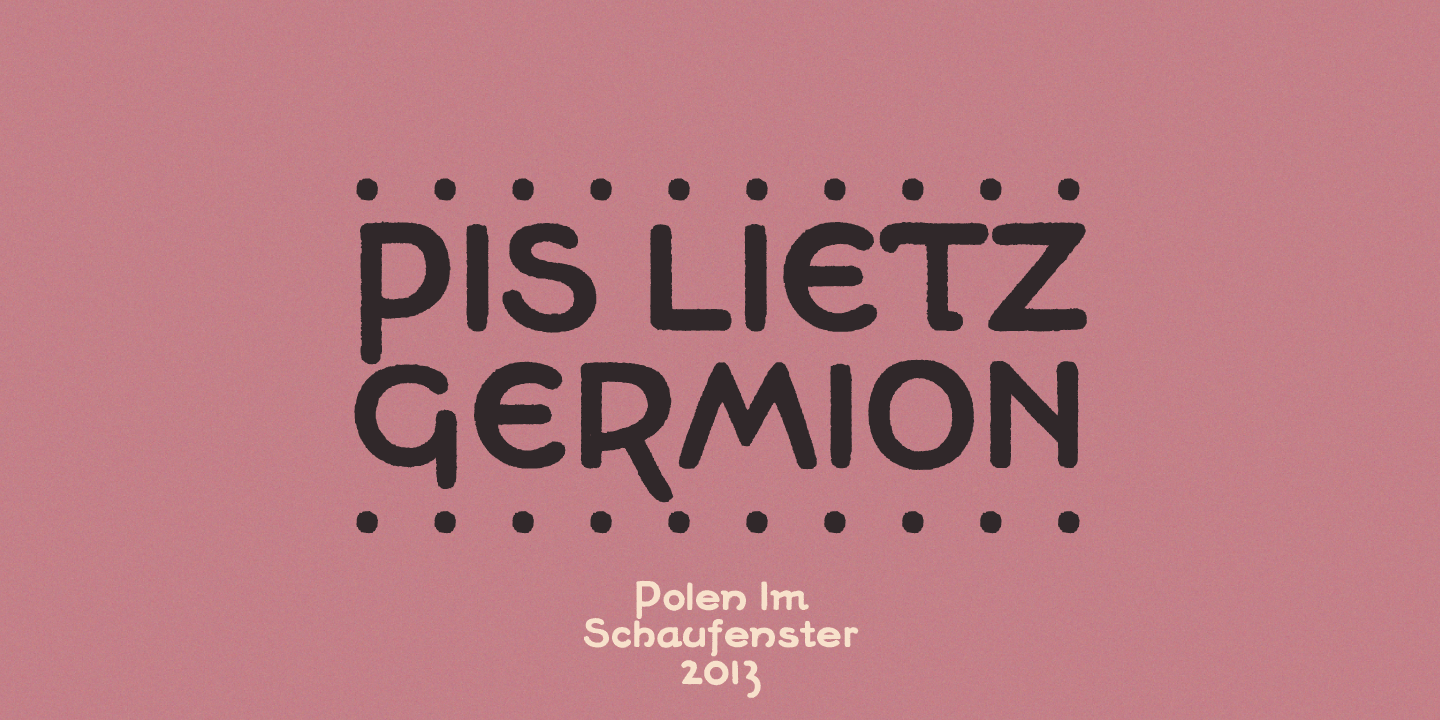
PiS LIETZ Germion Font is ideal for sophisticated design applications including Germanic cultural projects, European heritage branding, traditional craft brewery logos, classical music publications, architectural firm presentations, historical society materials, premium educational content, and refined advertising campaigns that require typography with distinctive European character and authentic cultural resonance.
What makes PiS LIETZ Germion Font exciting is its exceptional ability to capture the essence of Germanic typographic tradition while delivering contemporary functionality and refined elegance. This remarkable typeface features carefully crafted letterforms that honor classical European design principles with distinctive character details that communicate heritage, precision, and cultural authenticity. The font's sophisticated personality and traditional appeal make it perfect for brands seeking to establish credibility through cultural connection and typographic excellence.
PiS LIETZ Germion Font family encompasses multiple weights and stylistic variations designed for comprehensive European-inspired communication. The family typically includes light, regular, bold, and black weights, complemented by italic versions, decorative alternates, and extensive character sets with Germanic language support and traditional European typographic features.
Heritage-focused designers consistently choose PiS LIETZ Germion Font Free Download for projects requiring typography that embodies European cultural sophistication and traditional craftsmanship values. This distinguished typeface adapts beautifully across contemporary and classical applications, delivering consistent brand messaging with unmistakable cultural authenticity and professional refinement. The font's meticulously researched letterforms ensure historical accuracy while maintaining excellent modern readability. International creative agencies rely on this culturally rich typeface to communicate brand values of tradition, quality, and European heritage. Establish your brand's cultural credentials with PiS LIETZ Germion Font and create compelling visual communications that resonate with audiences who appreciate authentic European design traditions and sophisticated typographic craftsmanship.